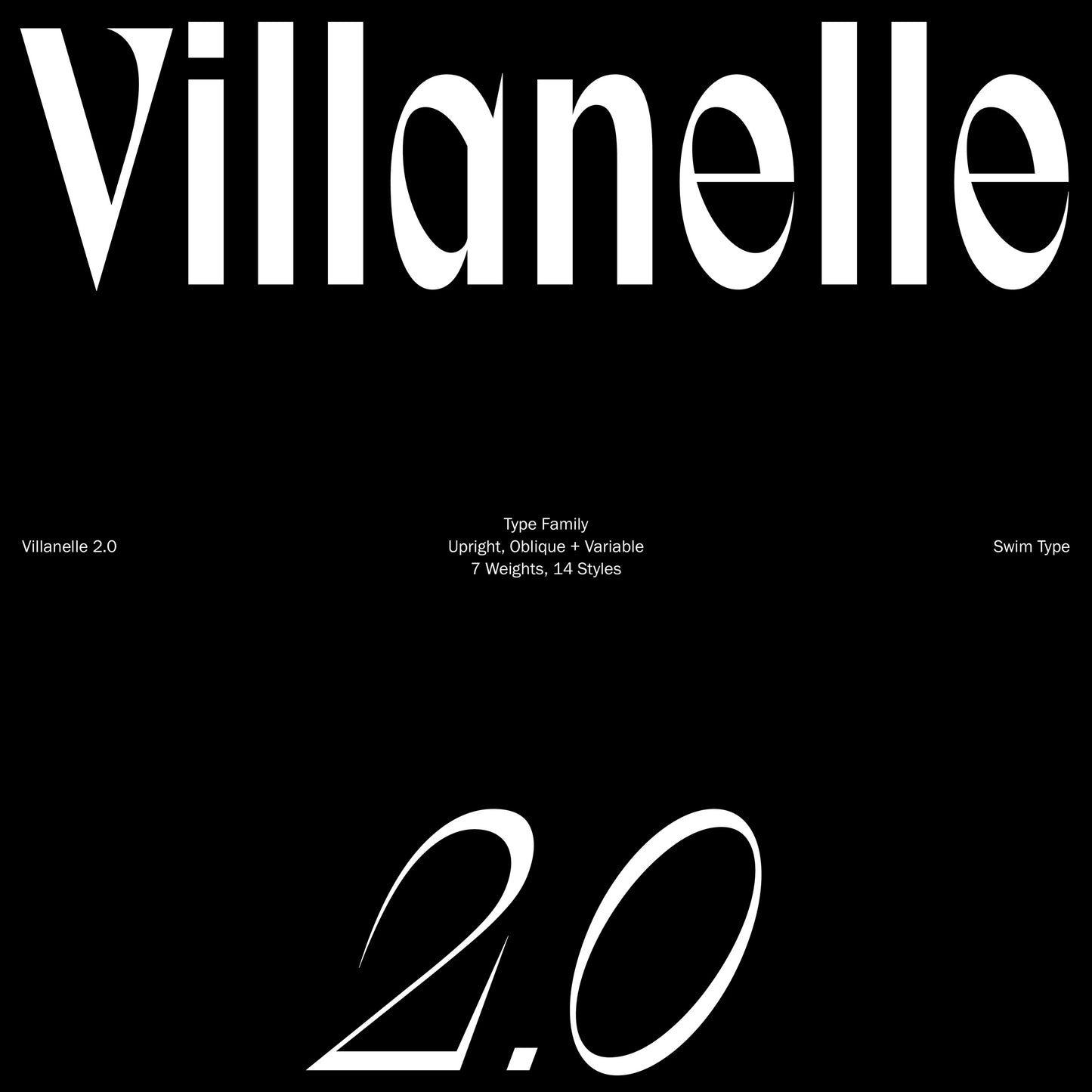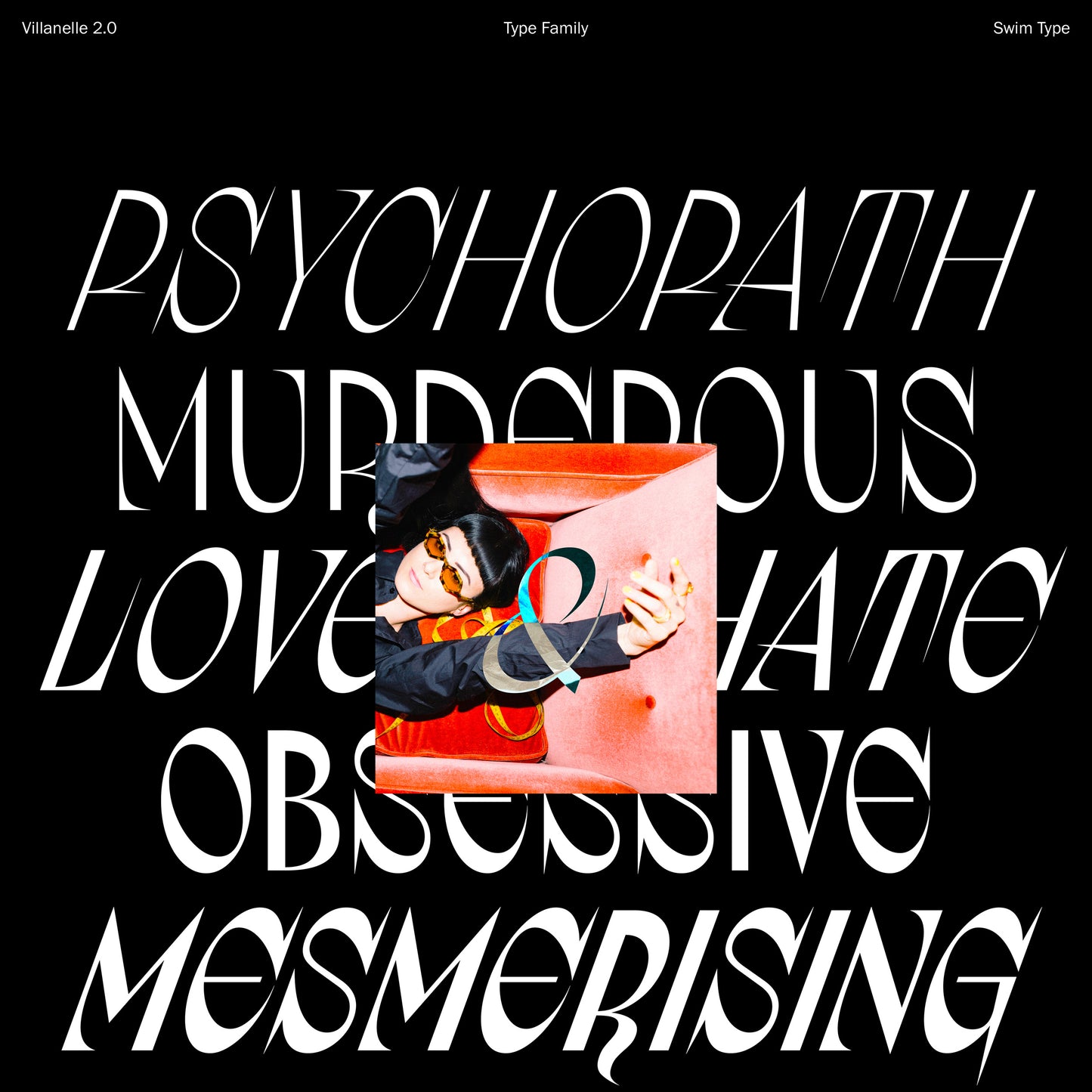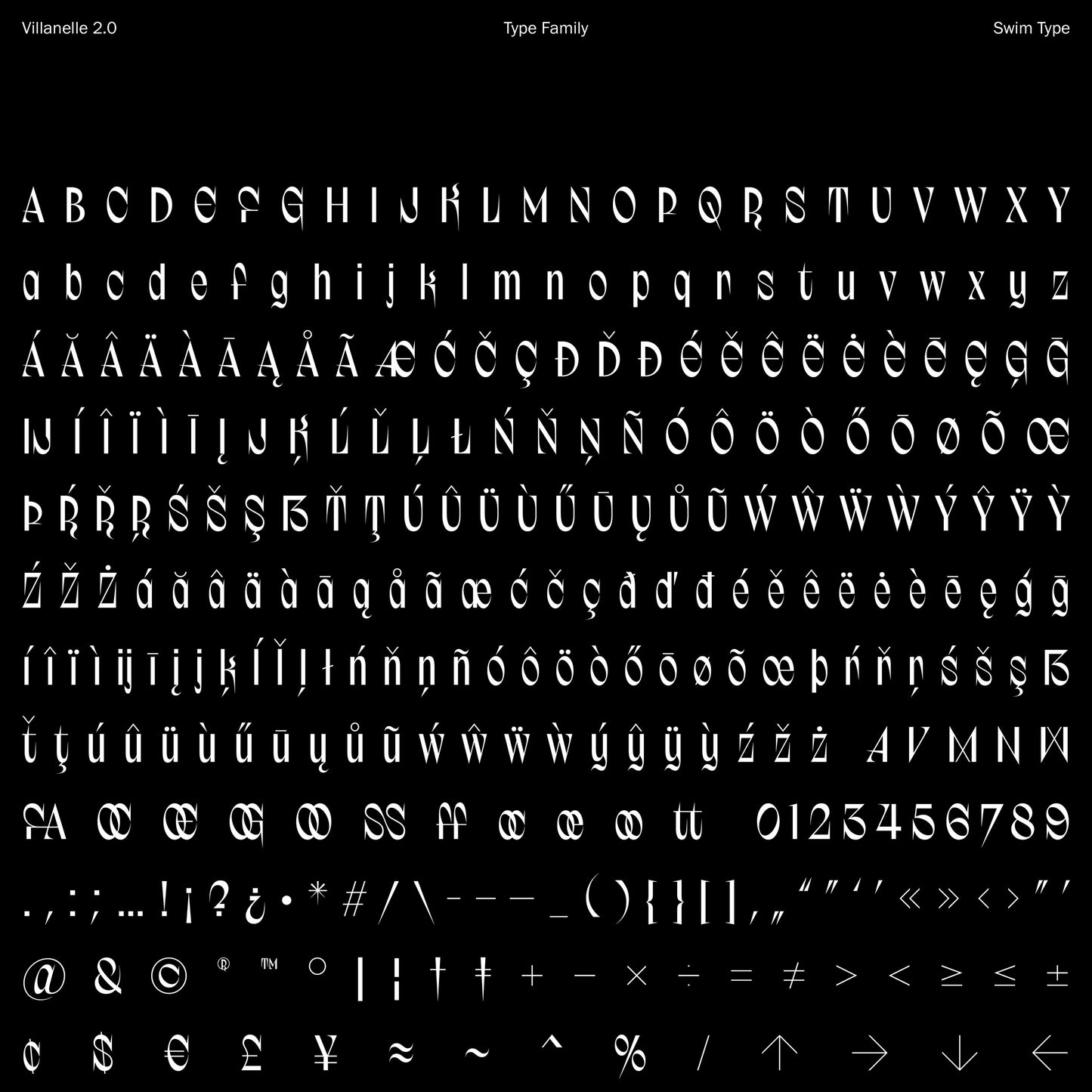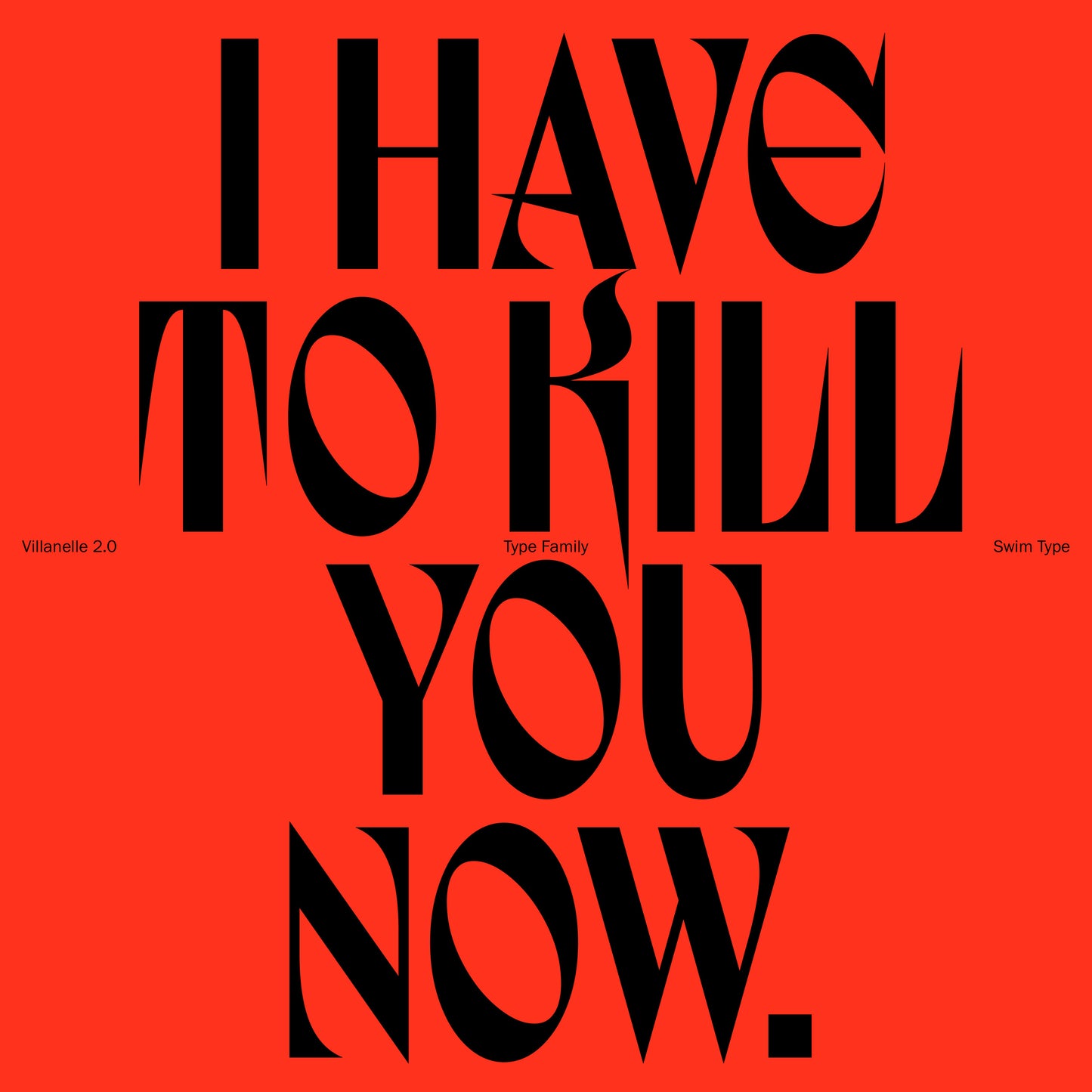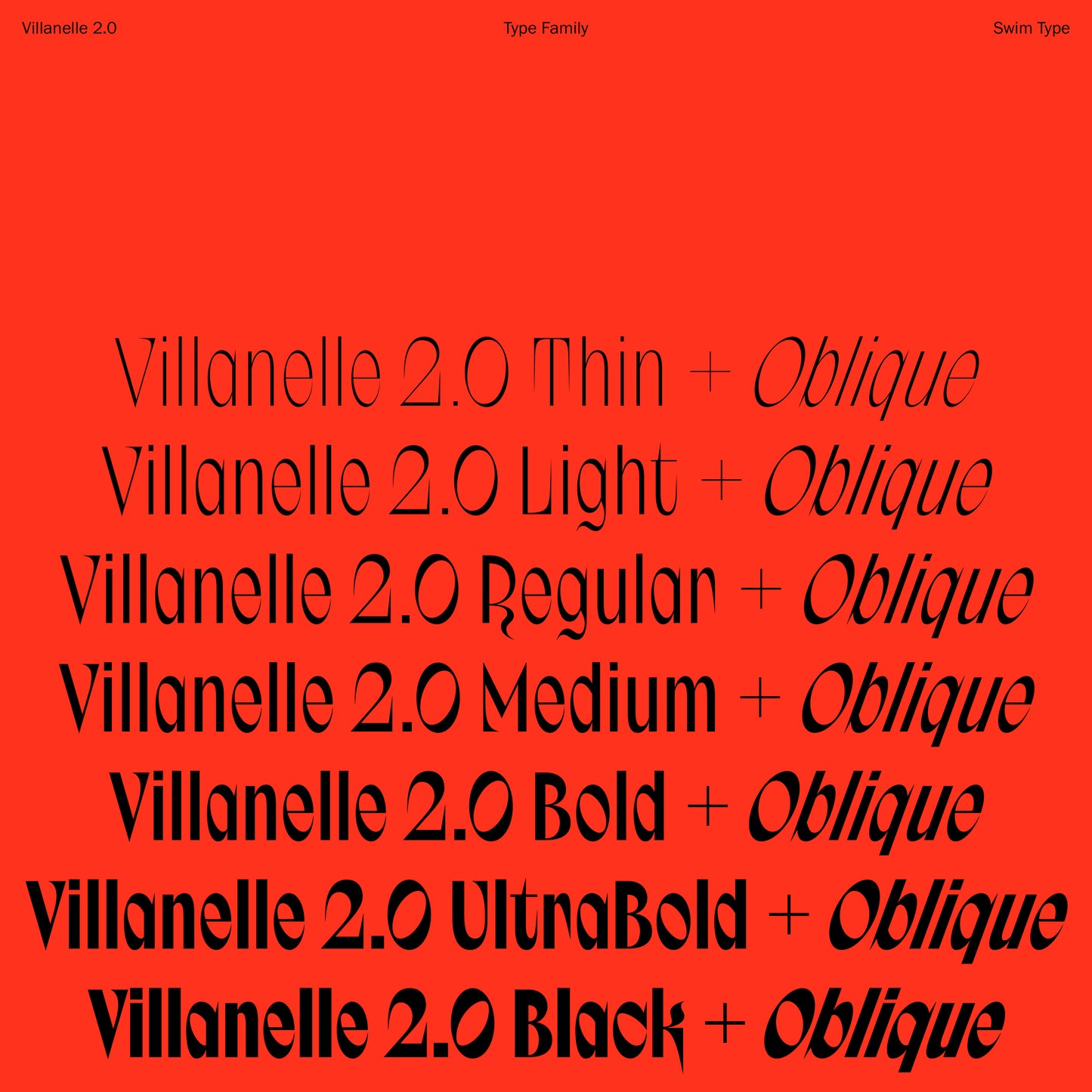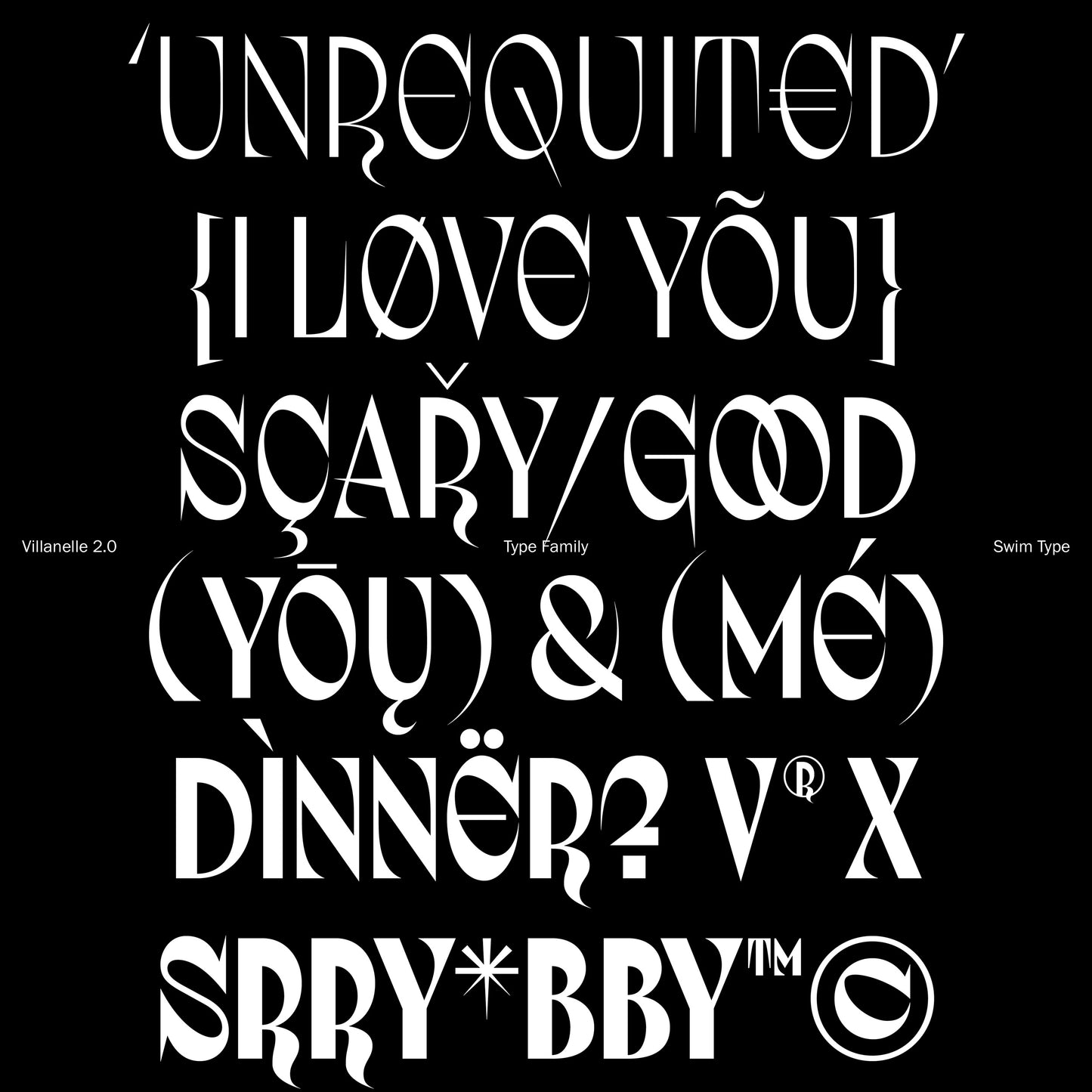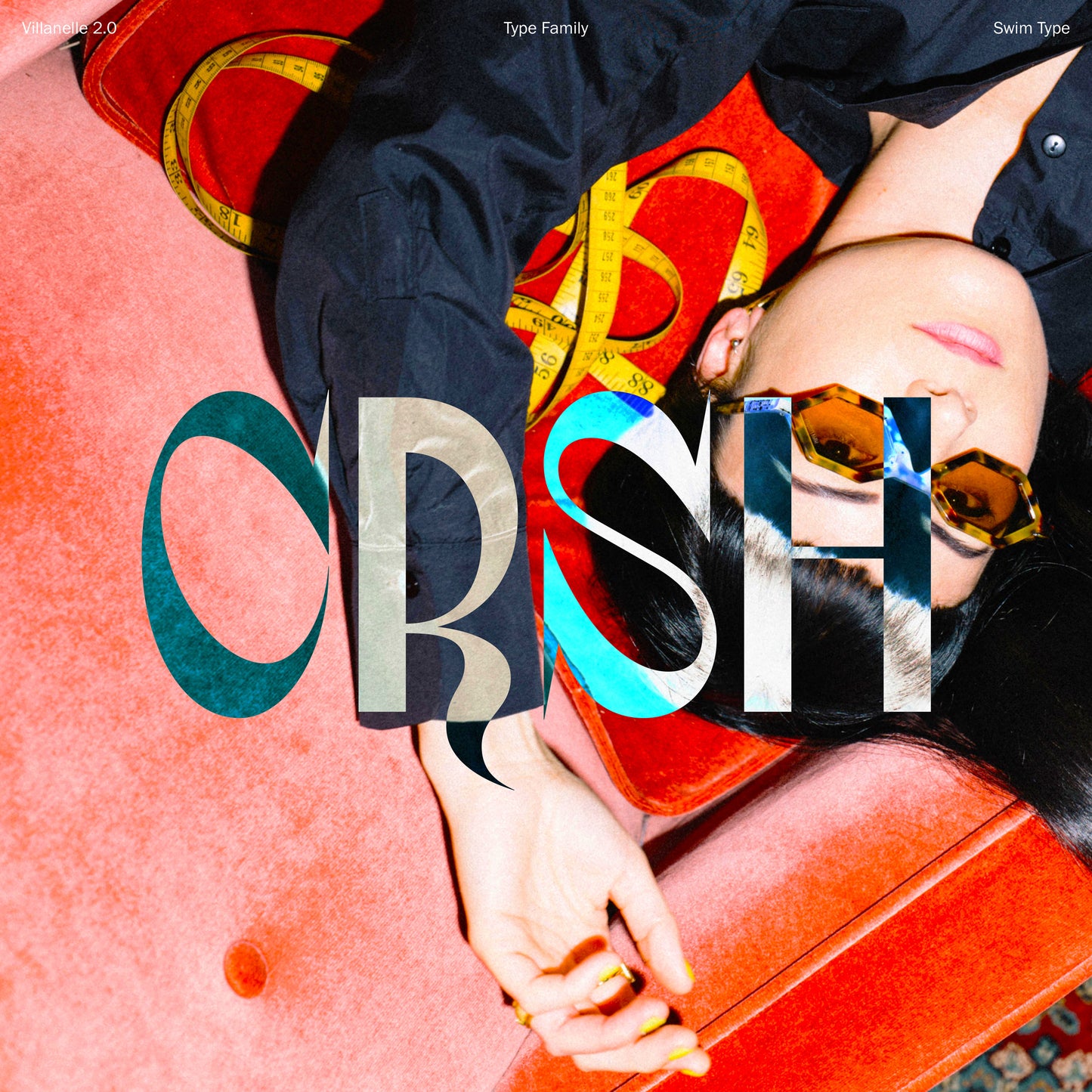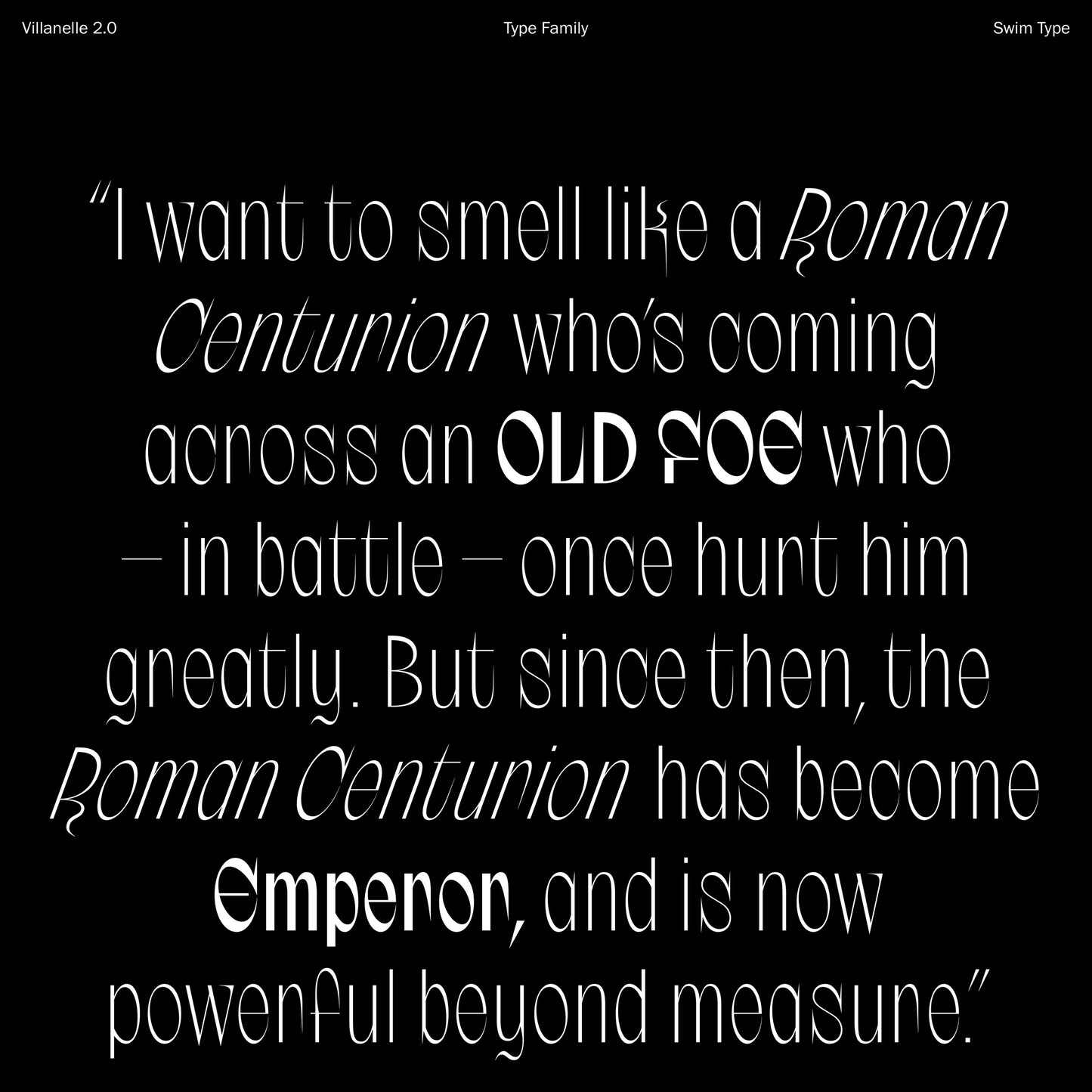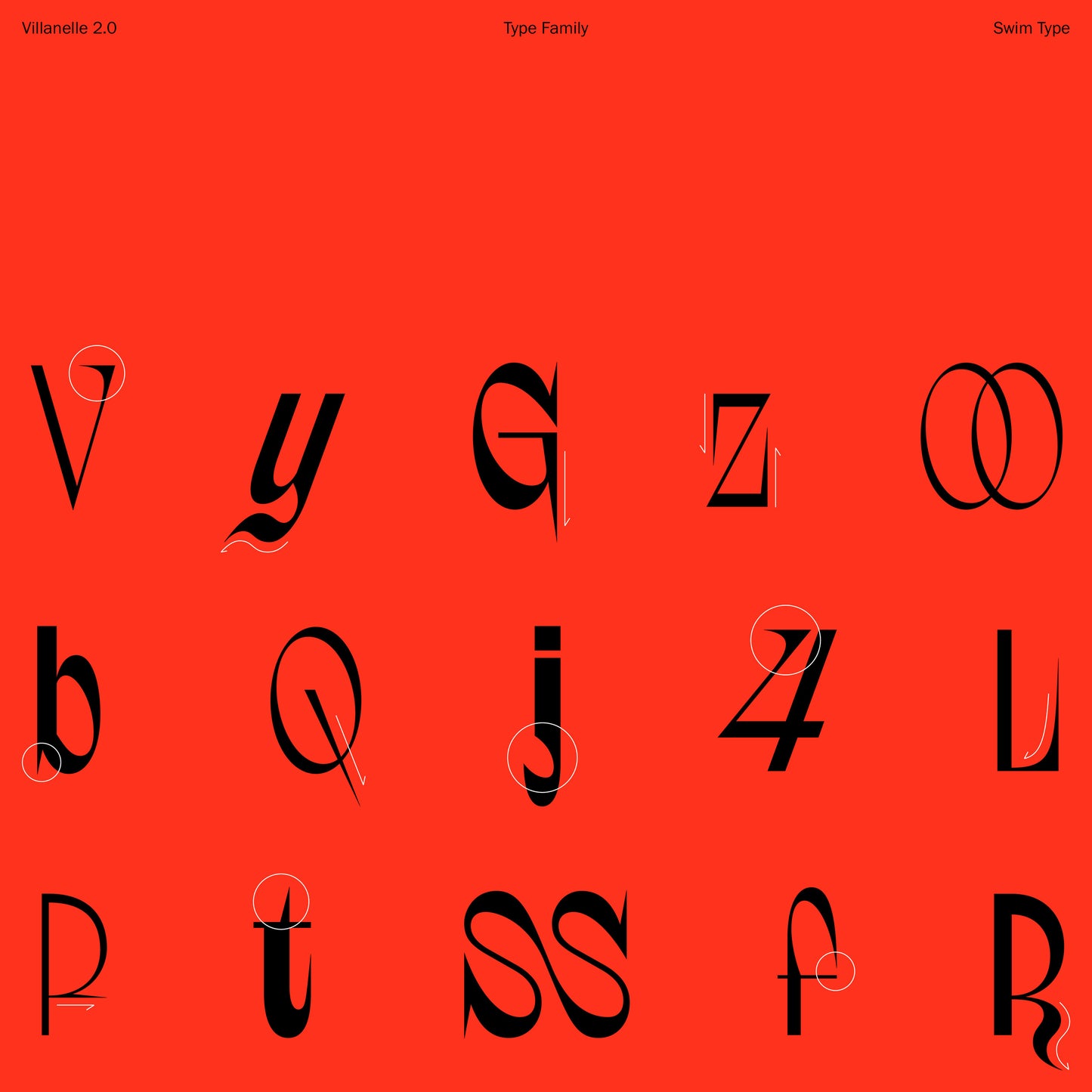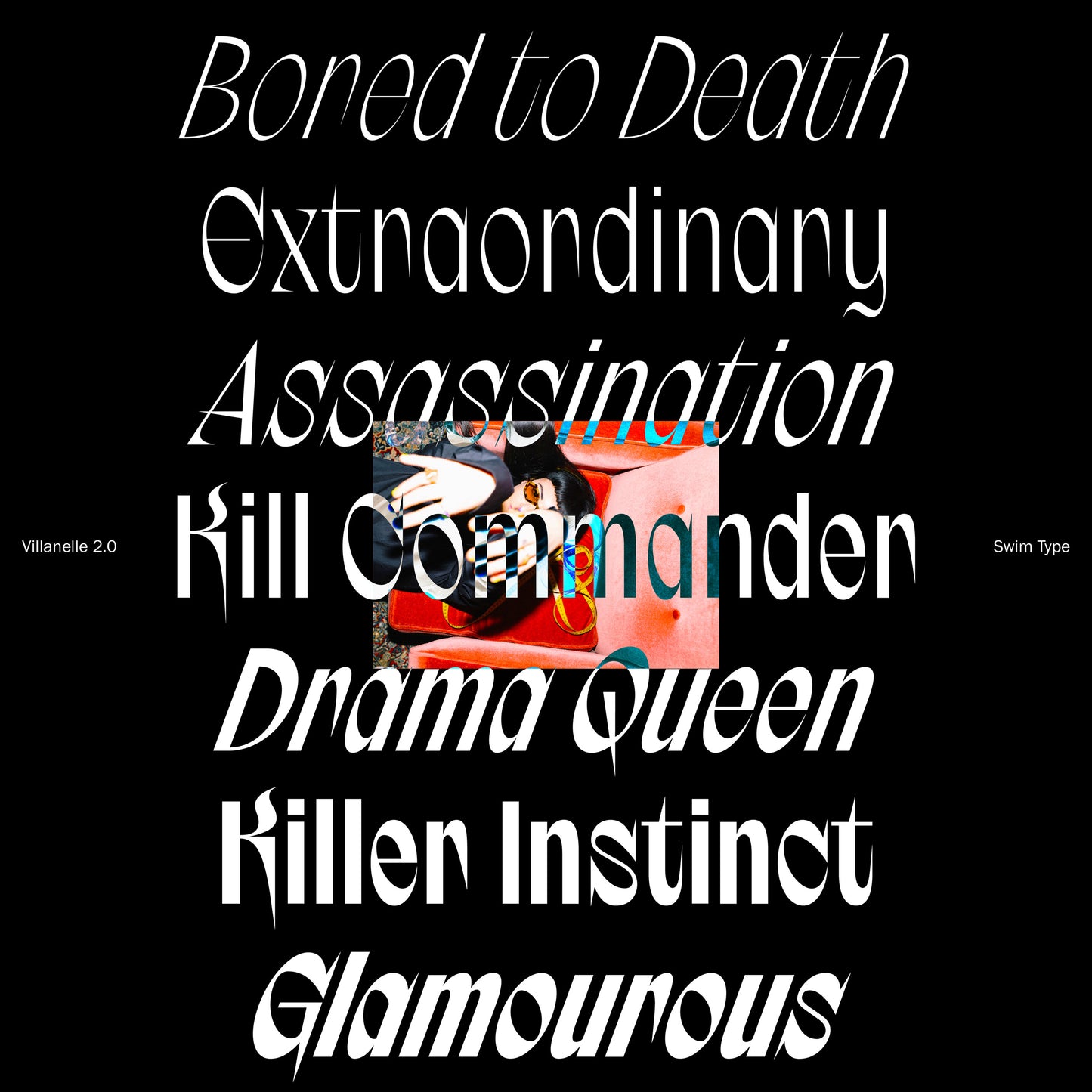
Villanelle 2.0
Swim Type
Villanelle 2.0 epitomizes dangerously glamorous, high-fashion type design, drawing inspiration from the enigmatic assassin in BBC America’s Killing Eve. Originally conceived as a single uppercase style in 2020, this typeface has evolved over two years to embody the character of a charismatic, psychopathic killer who exudes exquisite style and violence.
Can a set of letters convey the unsettling charm of a killer who enjoys their work? Villanelle 2.0 answers with elegant curves, razor-sharp edges, plunging descenders, high-contrast strokes, and a dramatic flair that captures the essence of its namesake.
This major update features a complete redraw of every glyph, now offering a full alphabet, 7 weights, and 14 styles including a variable font with 2 axes. Enhanced with extended Latin language support, discretionary ligatures, stylistic sets, improved spacing, and greater consistency, Villanelle 2.0 is ready to make a bold statement in editorial layouts, branding, and any design project seeking a touch of stylish menace.
- Uppercase & lowercase
- Stylistic Sets
- Diacritics
- Ligatures